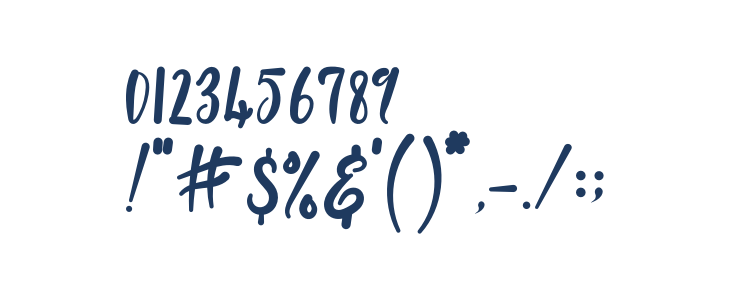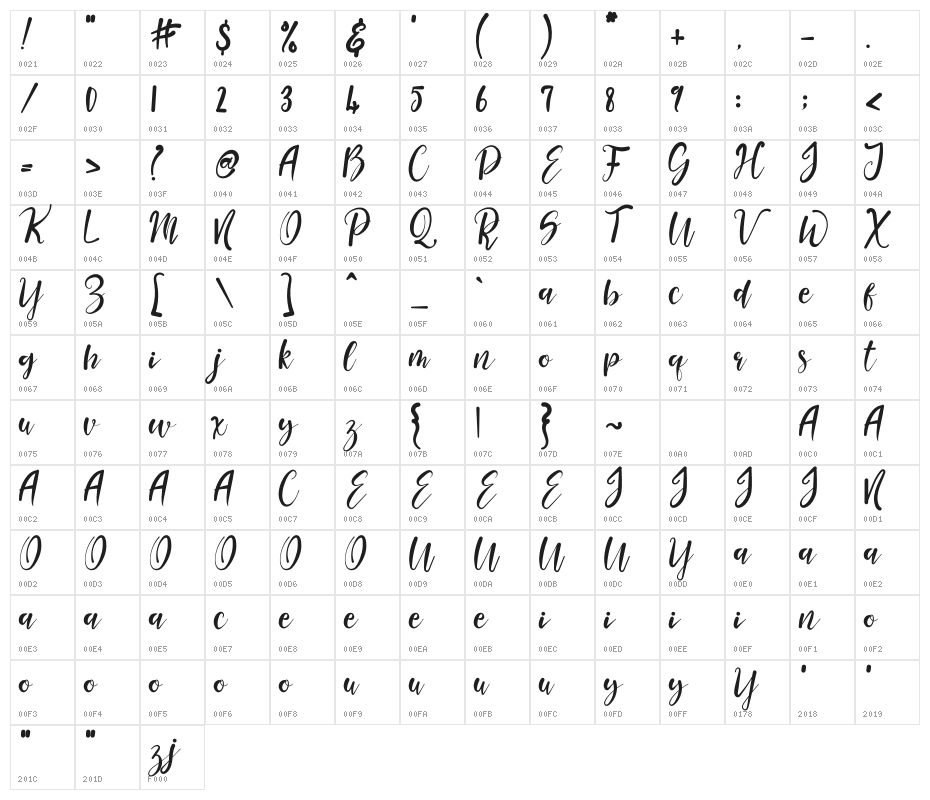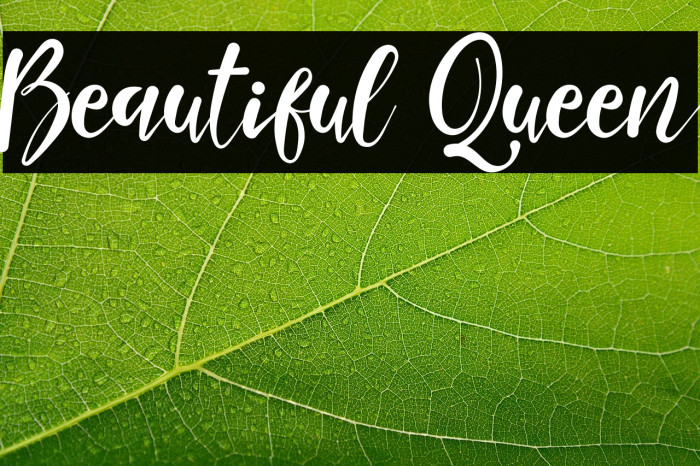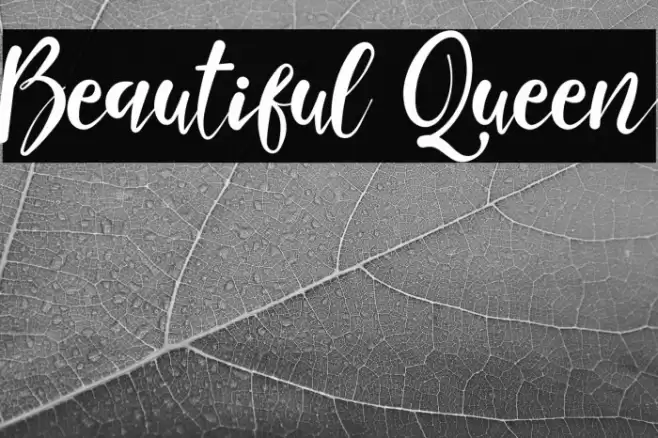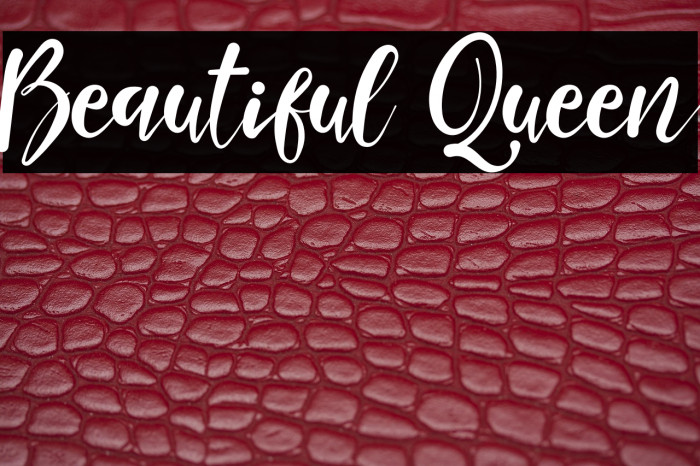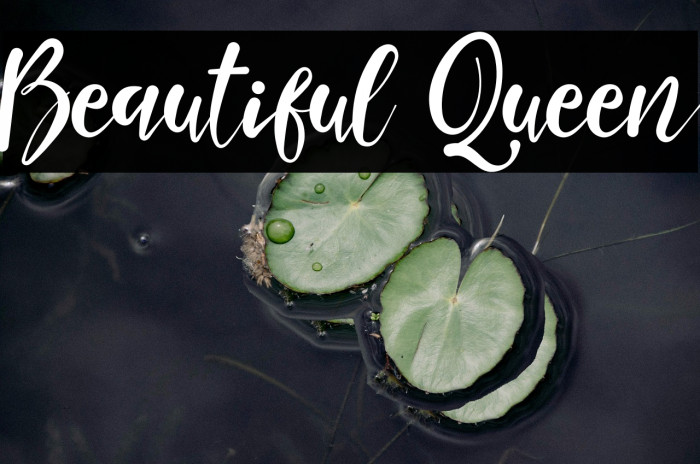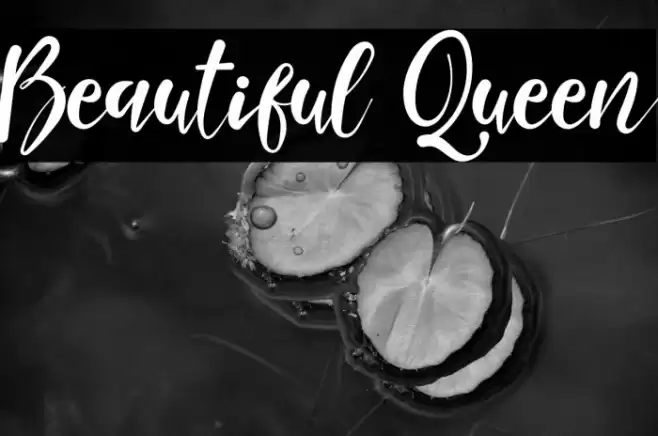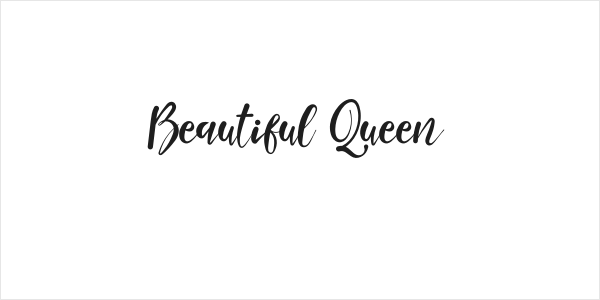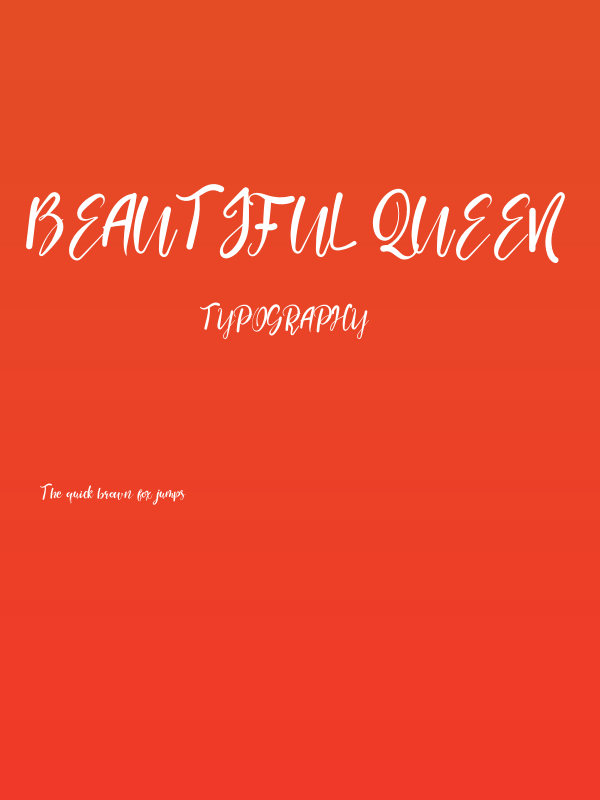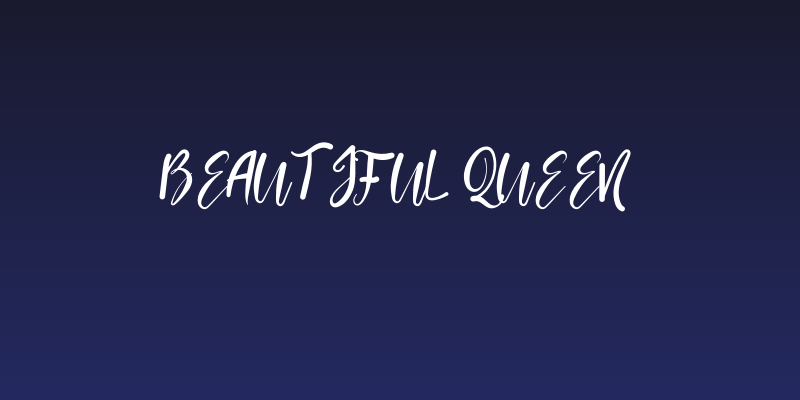
Beautiful Queen Font
Beautiful Queen Description
This font exhibits a flowing, cursive style with a modern twist, characterized by its elegant and smooth curves. The uppercase letters are bold and prominent, while the lowercase letters maintain a consistent fluidity, enhancing readability. The numerals are designed with a similar flair, ensuring they complement the alphabet seamlessly. Special characters are crafted with the same attention to detail, providing a cohesive look across all glyphs. The overall design is both sophisticated and approachable, making it suitable for a variety of creative applications.